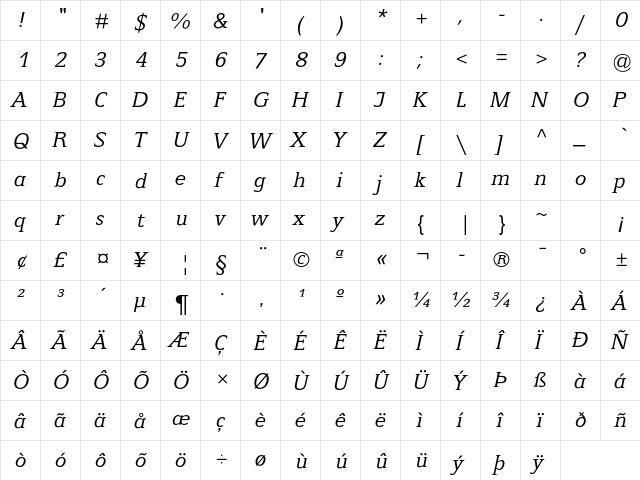
Jeunesse Slab Std Italic
Design Context for Jeunesse Slab Std Typeface
Jeunesse Slab Std features prominent, blocky serifs that give it a confident, grounded presence — equally at home in editorial settings and bold branding work. Its italic angle brings a sense of urgency and motion to the letterforms.
Suited to magazines, political campaign materials, bold packaging, and any setting where authority matters.
Pro Tip: Use Jeunesse Slab Std for headlines and subheadings where its slab serifs can make an impression. It also holds up well in mid-size body copy thanks to its sturdy construction.